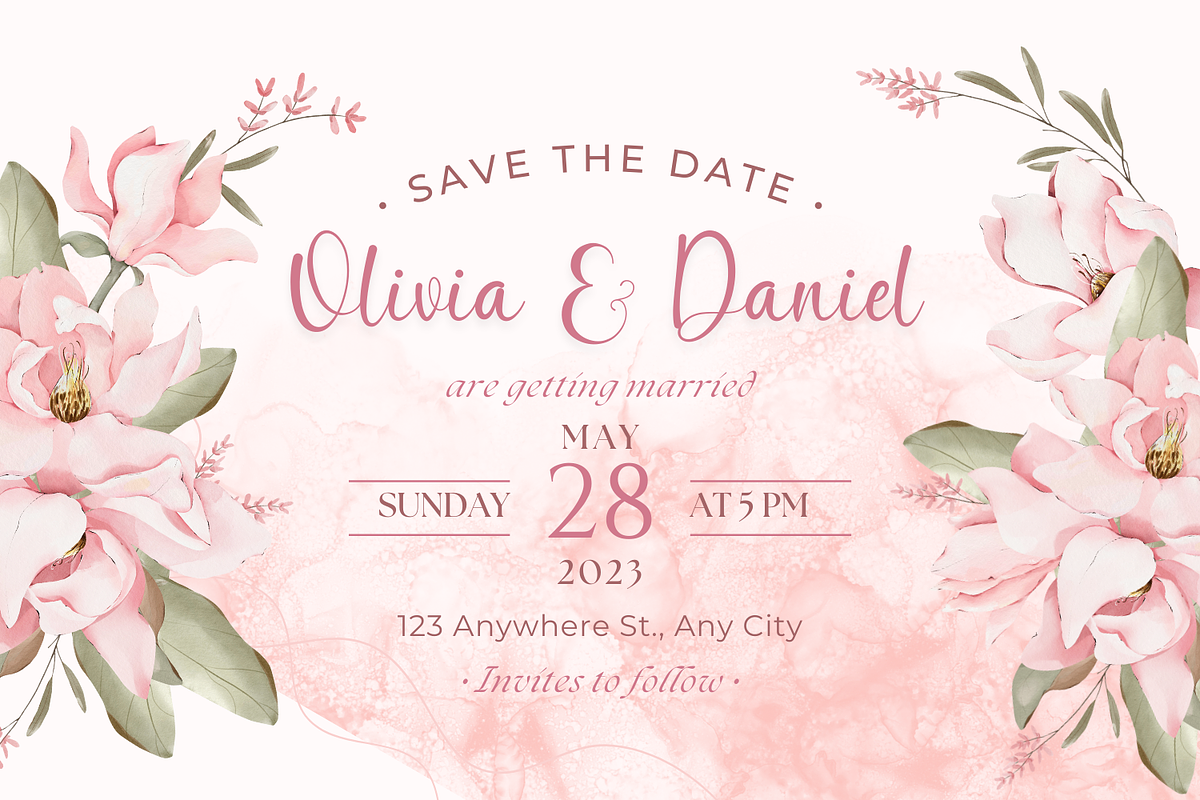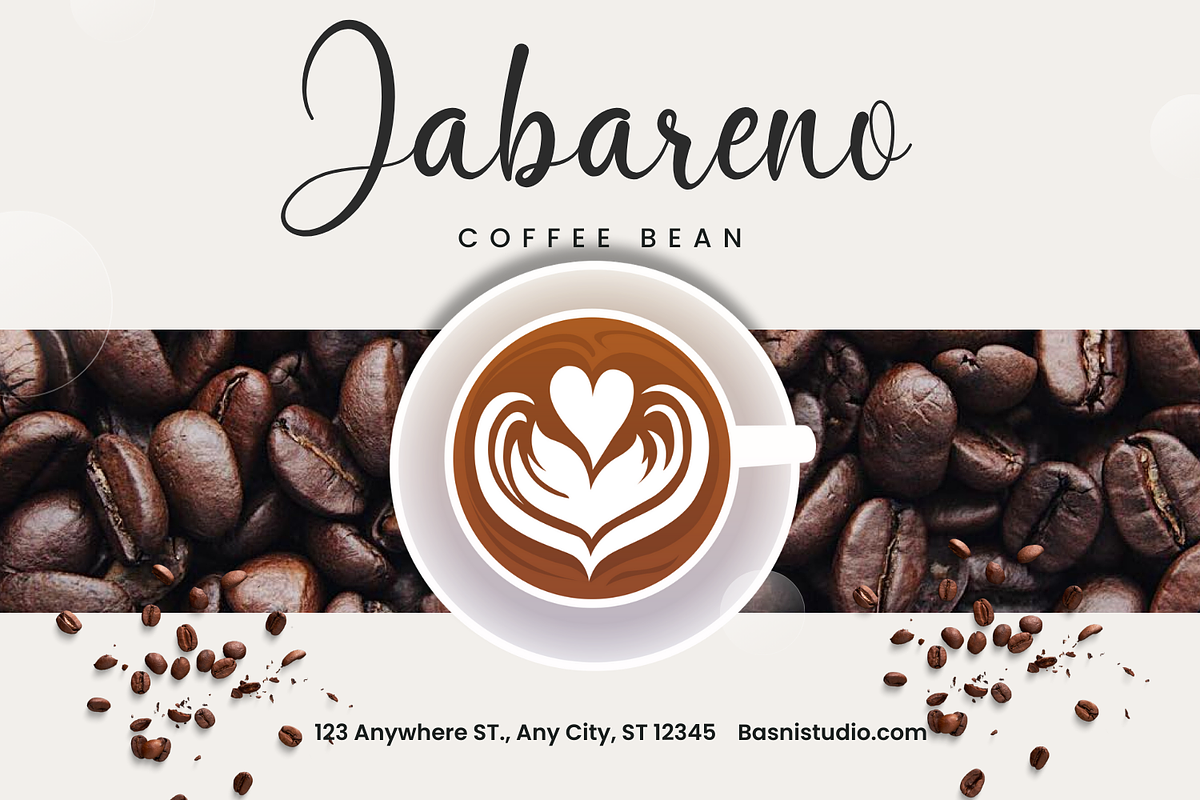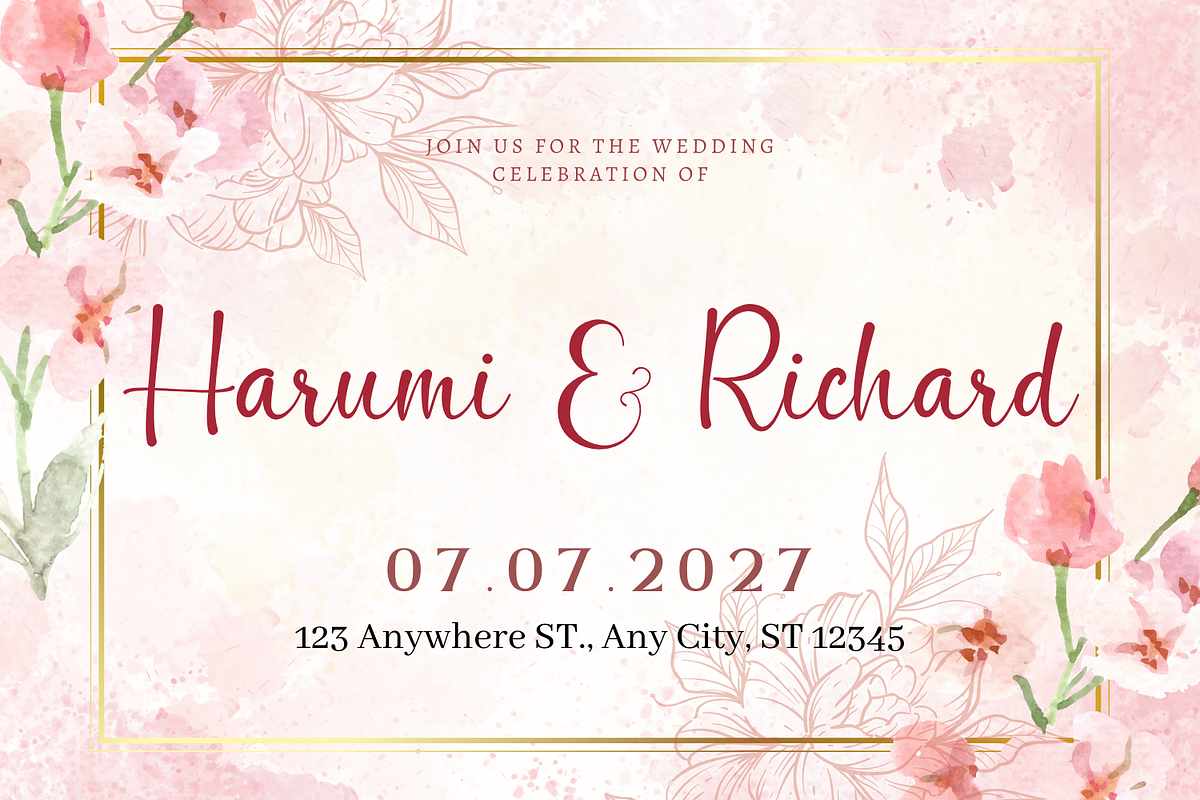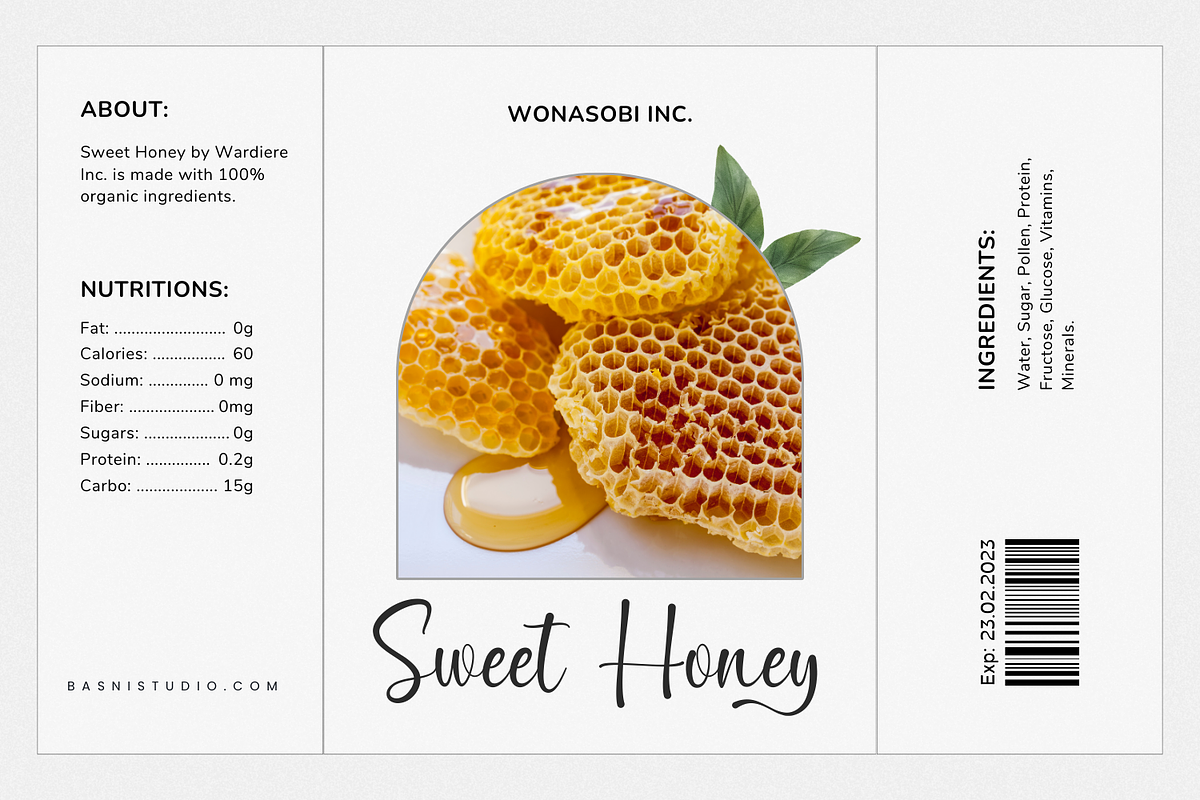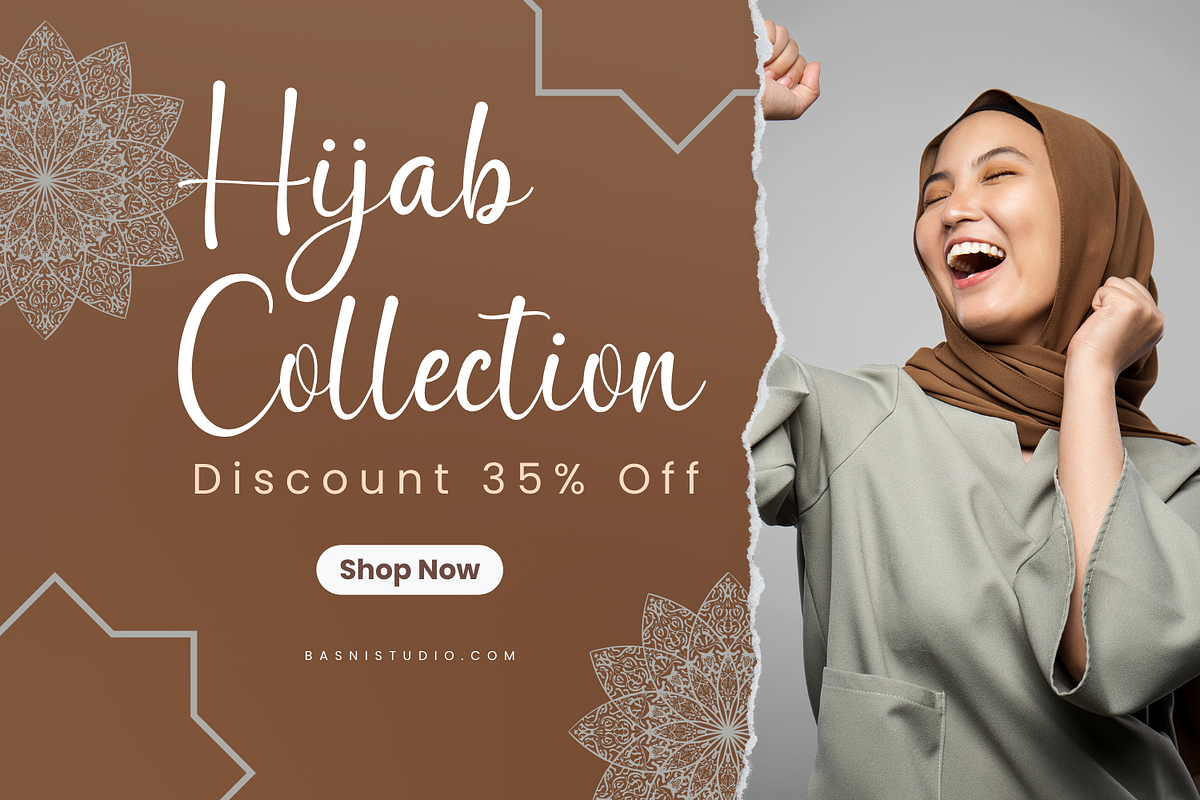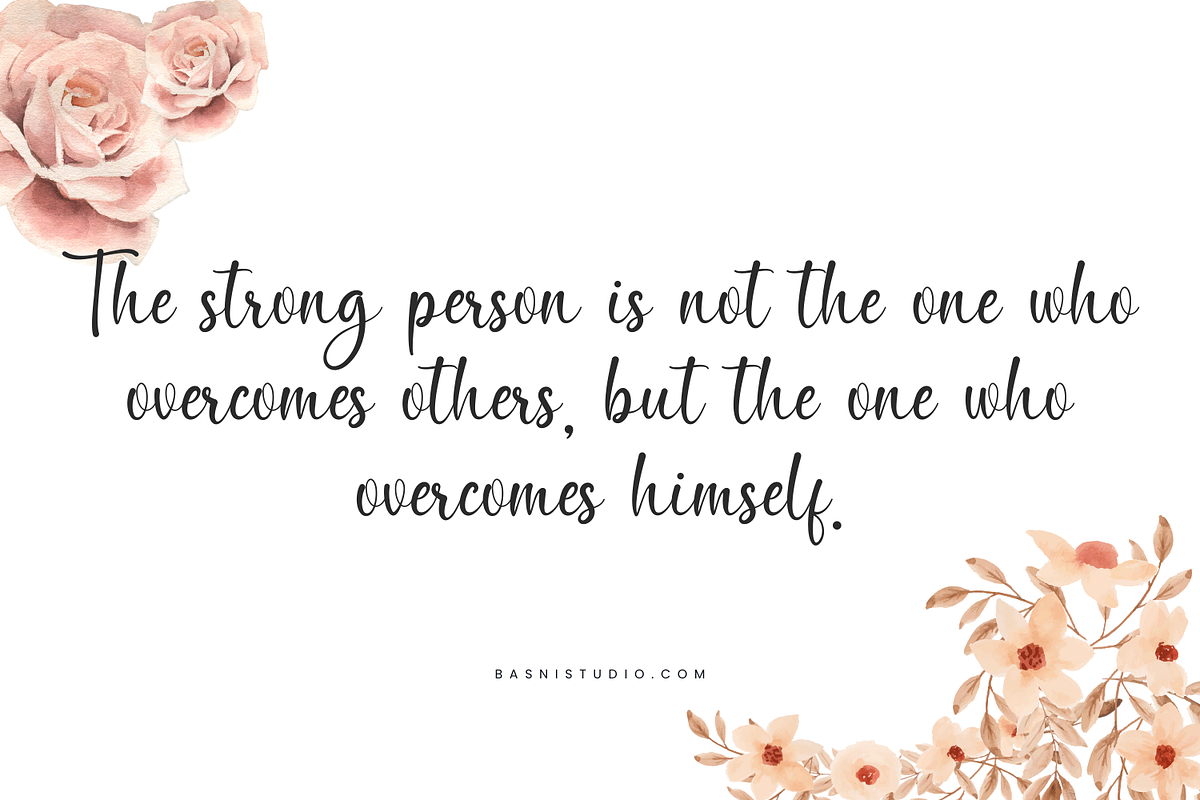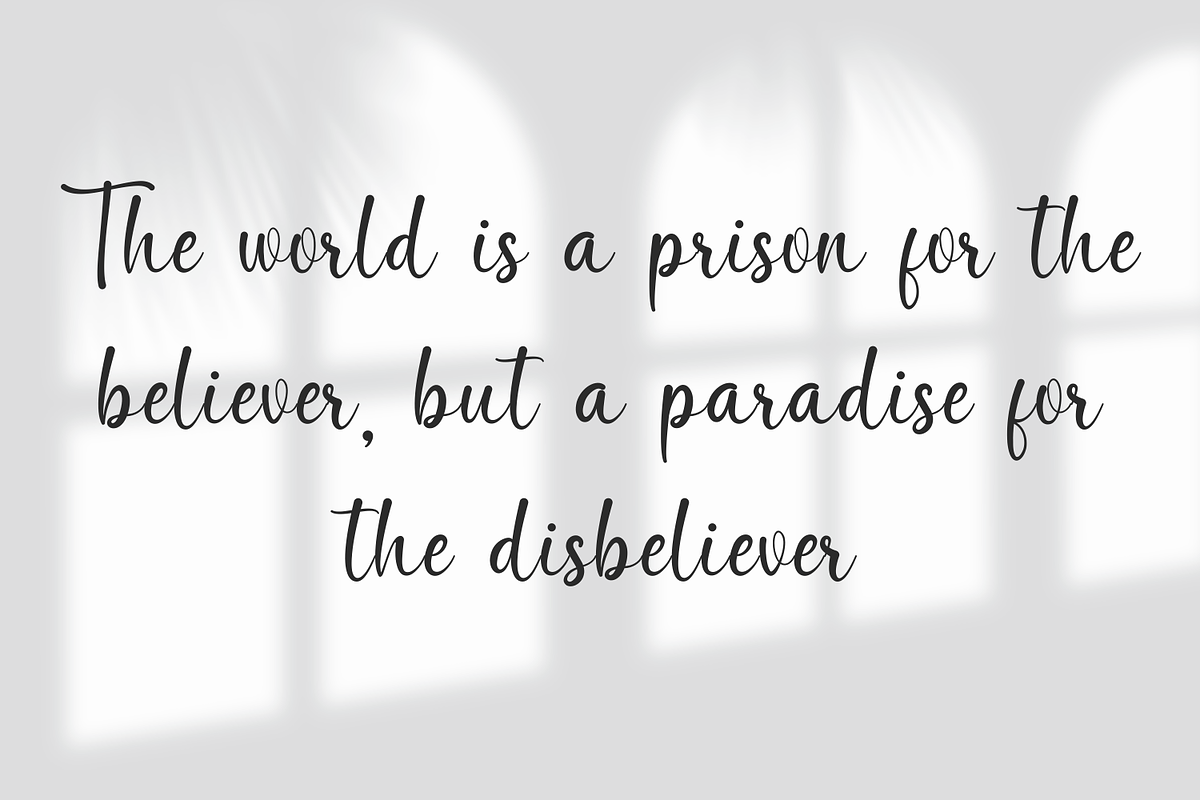
South Mongolia Handwritten Font
Introducing South Mongolia Handwritten Font
Why South Mongolia Handwritten Font is worth a look
South Mongolia Handwritten Font by Basnistudio fits naturally into Branding, posters, packaging, typography.